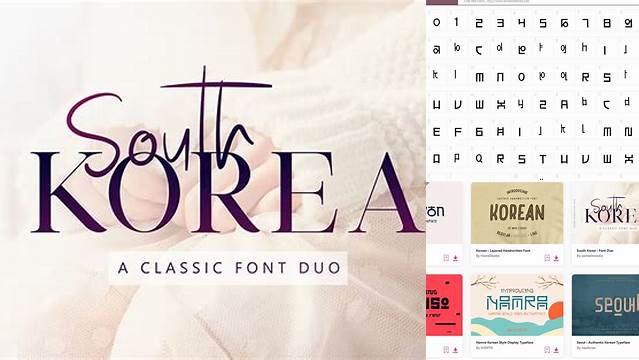
Free South Korea Script Fonts: Download Now!
Hey guys! Looking to add some Korean flair to your designs? You've come to the right place! In this article, we're diving deep into the world of South Korea script fonts, and the best part? We're focusing on how to find them for free! Whether you're working on a poster, a website, or just want to experiment with beautiful Korean typography, we've got you covered. Let's jump in!
1. Understanding Korean Script Fonts
Before we dive into where to find these gems, let's take a moment to appreciate what makes Korean script fonts so unique. Unlike the blocky nature of some other East Asian scripts, Korean (Hangul) can be incredibly fluid and elegant, especially when rendered in a script style. This fluidity makes Korean script fonts perfect for projects that need a touch of sophistication, personality, or even a bit of that K-drama magic. You know, that soft, romantic aesthetic that's so popular. Understanding the nuances of these fonts will help you choose the perfect one for your project, ensuring it resonates with your target audience and conveys the intended message effectively. We'll explore different styles, weights, and characteristics, giving you a solid foundation for your font selection process. Choosing the right font is like picking the perfect outfit – it sets the tone and makes a statement! So, let’s make sure you're dressed for success!
2. The Allure of Free Fonts
Who doesn't love free stuff? When it comes to free fonts, the appeal is obvious. But it's not just about saving money (though that's a definite perk!). Exploring free Korean script fonts opens up a world of creative possibilities without the pressure of a hefty price tag. It allows you to experiment, try out different styles, and see what truly works for your project. Imagine being able to test drive a whole library of fonts without spending a dime – that's the power of free resources! However, it's super important to understand licensing. Just because a font is free doesn't mean you can use it for anything. We'll delve into the different types of licenses and what they mean for your projects, ensuring you stay on the right side of the legal line while still enjoying the bounty of free resources. After all, we want to be creative, not criminal!
3. Where to Find Free South Korea Script Fonts
Alright, let's get to the good stuff! Where can you actually find these free South Korea script fonts? The internet is a vast place, and finding quality fonts can feel like searching for a needle in a haystack. But don't worry, we've done some of the digging for you. We'll explore various online resources, including font websites, design communities, and even some hidden gems that specialize in Asian typography. We'll also look at specific sites that often offer Korean fonts for free, either for personal or commercial use (again, always check the license!). Think of this section as your treasure map to the world of free fonts. We'll point you in the right direction, give you some helpful tips for navigating these resources, and hopefully, help you unearth some real typographic gold! So, grab your digital shovel, and let's start digging!
4. Popular Font Websites Offering Free Korean Scripts
Let’s get specific! Which websites are actually worth your time when searching for free Korean script fonts? We’ll highlight some of the big players in the font world, as well as some smaller, more niche sites that might be your secret weapon. We’ll look at sites like DaFont, Font Squirrel, and Google Fonts (yes, Google Fonts has some fantastic Korean options!). We’ll also explore some Asian-specific font resources that might not be as well-known but offer a unique selection of Korean typefaces. Each website has its own strengths and weaknesses, so we'll break down what makes each one special, helping you to streamline your search and find the perfect font for your needs. Think of this as your personalized guide to the best font shopping destinations on the web!
5. Open Source Korean Fonts: A Goldmine
Open source fonts are a designer's best friend! These fonts are not only free but also often come with very flexible licenses, allowing you to use them in a wide range of projects, both personal and commercial. We'll delve into the world of open source Korean fonts, explaining what makes them so great and where to find them. We'll discuss the benefits of using open source fonts, such as the ability to modify and redistribute them (within the license terms, of course!). We'll also highlight some specific open source Korean script fonts that are known for their quality and versatility. Think of open source fonts as the free software of the typography world – powerful, adaptable, and created by a community of passionate designers. Let’s explore this treasure trove of typographic goodness!
7. Tips for Choosing the Right Korean Script Font
So, you've found a bunch of free Korean script fonts – awesome! But how do you choose the right one? This is where your design skills come into play. We'll share some tips for selecting the perfect font for your project, considering factors like readability, style, and target audience. We'll discuss how different Korean script fonts can evoke different emotions and how to choose a font that aligns with your overall design aesthetic. We'll also touch on the importance of testing the font in different sizes and contexts to ensure it looks great in the final product. Think of this as your personal font consultant, guiding you through the selection process and helping you make a choice that will elevate your design. Let’s make sure you’re not just choosing a font, but the font!
8. Matching Korean Scripts with Other Fonts
Sometimes, you'll want to pair a Korean script font with another font, perhaps a Latin alphabet font for headings or body text. This is where things can get a little tricky, but fear not! We'll share some tips for successfully matching Korean scripts with other fonts. We'll discuss the importance of considering factors like contrast, harmony, and visual balance. We'll also provide some specific examples of font pairings that work well together, giving you a starting point for your own experiments. Think of this as your font dating service, helping you find the perfect match for your Korean script font. Let’s create some typographic harmony!
9. Installing Your New Free Fonts
Okay, you've downloaded your free Korean script font – now what? It's time to install it! We'll provide a step-by-step guide on how to install fonts on both Windows and macOS, covering the common methods and troubleshooting any potential issues. We'll also discuss font management tools that can help you organize your growing font library and keep things running smoothly. Think of this as your font installation manual, ensuring you get your new typographic goodies up and running without any headaches. Let’s get those fonts installed and ready to roll!
10. Using Korean Script Fonts in Graphic Design
Now for the fun part! How do you actually use Korean script fonts in your graphic designs? We'll explore different applications of these fonts, from posters and logos to websites and social media graphics. We'll discuss how to use Korean script fonts to create a sense of authenticity, elegance, or even a bit of playful charm. We'll also provide some examples of successful designs that incorporate Korean typography, inspiring you to create your own masterpieces. Think of this as your creative playground, where you can experiment with Korean script fonts and see your design visions come to life. Let’s get those creative juices flowing!
11. Utilizing Korean Script Fonts in Web Design
Korean script fonts aren't just for print – they can also add a unique touch to your website! We'll explore how to use Korean typography in web design, considering factors like readability on screen and compatibility with different browsers. We'll discuss how to embed Korean fonts on your website using techniques like @font-face and web font services. We'll also provide some examples of websites that successfully use Korean script fonts, showcasing the possibilities for creating a visually engaging online experience. Think of this as your web design font guide, helping you bring the beauty of Korean typography to the digital world. Let’s make your website stand out from the crowd!
12. Incorporating Korean Script Fonts in Logos
A Korean script font can be a fantastic choice for a logo, especially if you want to convey a sense of cultural authenticity or artistic flair. We'll discuss the considerations for using Korean typography in logo design, such as legibility at small sizes and the overall brand message. We'll analyze some existing logos that use Korean script fonts effectively, highlighting the design choices that make them successful. Think of this as your logo design font masterclass, helping you create a logo that truly captures the essence of your brand. Let’s create a logo that speaks volumes!
13. Korean Script Fonts for Print Materials
From posters and brochures to business cards and invitations, Korean script fonts can add a touch of elegance and sophistication to your print materials. We'll discuss the considerations for using Korean typography in print design, such as choosing a font that prints clearly and ensuring proper kerning and leading. We'll also provide some examples of print designs that effectively utilize Korean script fonts, inspiring you to create your own stunning print pieces. Think of this as your print design font bible, guiding you through the process of creating beautiful and impactful printed materials. Let’s make your print designs shine!
14. Free Calligraphy-Style Korean Fonts
Calligraphy-style Korean fonts are particularly beautiful, often mimicking the strokes and flow of traditional Korean calligraphy. We'll explore the characteristics of these fonts and where to find them for free. These fonts can add an extra touch of elegance and authenticity to any project. Finding the right font can enhance any design.
15. Modern Free Korean Script Fonts
If you're looking for something sleek and contemporary, there are many modern free Korean script fonts available. These fonts often have clean lines and a minimalist aesthetic, perfect for modern designs. It's like choosing the perfect sleek outfit for a modern look.
16. Traditional Free Korean Script Fonts
For a more classic and historical feel, traditional free Korean script fonts are an excellent choice. These fonts often reflect the handwriting styles of past eras, adding a sense of history to your designs. It's like a vintage treasure!
17. Light and Delicate Free Korean Script Fonts
Sometimes, a subtle touch is what you need. Light and delicate free Korean script fonts are perfect for projects where you want to convey a sense of grace and elegance. Imagine a whisper of elegance in your designs.
18. Bold and Strong Free Korean Script Fonts
Need your text to make a statement? Bold and strong free Korean script fonts are ideal for headlines and titles, ensuring your message gets noticed. Think of them as the bold statement pieces in your design wardrobe.
19. Downloading Free Korean Fonts Legally
We've touched on licensing, but let's reiterate: Always download free Korean fonts from reputable sources to avoid copyright issues. This is crucial for ethical design practices. Stay safe and legal!
20. Free Korean Fonts for Commercial Use
Many free Korean fonts are available for commercial use, but it's crucial to verify the license. This ensures you can use the font in your paid projects without any legal worries. It's like getting the green light for your business ventures!
21. Free Korean Fonts for Personal Use
If you're just experimenting or working on personal projects, there are tons of free Korean fonts you can use without any restrictions. Enjoy the creative freedom!
22. Converting Korean Script Fonts to Outlines
Converting fonts to outlines allows you to manipulate them as vector graphics, which can be useful for logo design and other creative applications. It’s like unlocking the full potential of your fonts!
23. Kerning and Leading with Korean Script Fonts
Proper kerning (adjusting the spacing between letters) and leading (adjusting the spacing between lines) is essential for readability, especially with Korean script fonts. Make sure your text looks polished and professional.
24. Avoiding Common Mistakes with Korean Typography
There are some common pitfalls when working with Korean typography, such as using fonts that are too decorative for body text. Being aware of these mistakes can help you create more effective designs.
25. The Future of Korean Script Fonts in Design
Korean script fonts are constantly evolving, with new styles and designs emerging regularly. Staying updated with the latest trends can give your designs a fresh and contemporary edge. It's like keeping up with the fashion trends in the design world!
26. Best Font Management Tools for Korean Fonts
Managing a large font library can be challenging, especially with Korean fonts. Font management tools can help you organize, activate, and deactivate fonts as needed. Think of it as decluttering your font closet!
27. Creating Your Own Korean Inspired Font
If you're feeling ambitious, you can even try creating your own Korean inspired font. This is a challenging but rewarding project for experienced designers. It's like becoming a font fashion designer!
28. Korean Script Font Pairing Examples
Let's explore some specific examples of Korean script font pairings that work well together. Seeing these examples can inspire your own font choices. Like seeing the best-dressed couples in the design world!
29. Free Resources for Learning Korean Typography
There are many free resources available online for learning about Korean typography, from tutorials to articles. Expanding your knowledge can help you make more informed design decisions. It's like going to design school online, for free!
30. The Cultural Significance of Korean Script Fonts
Finally, let's not forget the cultural significance of Korean script fonts. Understanding the history and context behind these fonts can add depth and meaning to your designs. It's like understanding the story behind a beautiful piece of art.
So, there you have it! A comprehensive guide to finding and using free South Korea script fonts. Go forth and create some amazing designs!